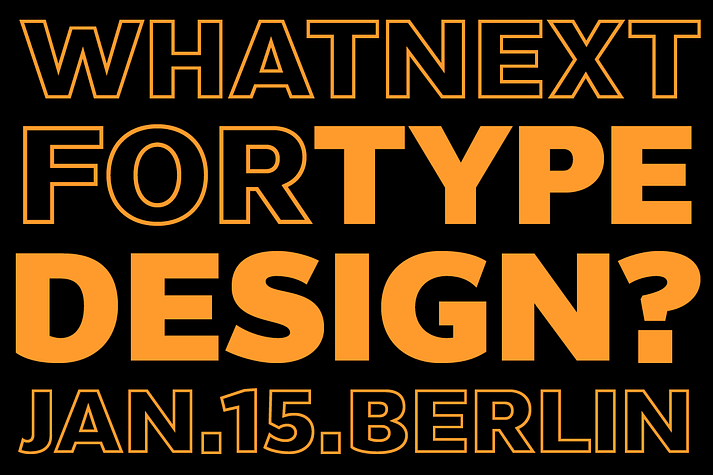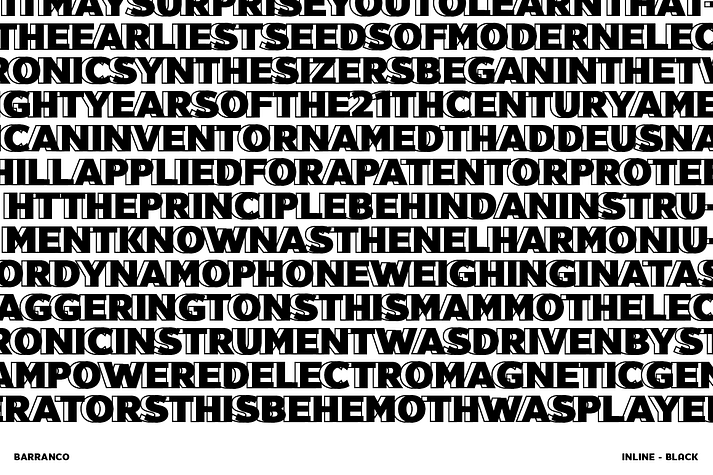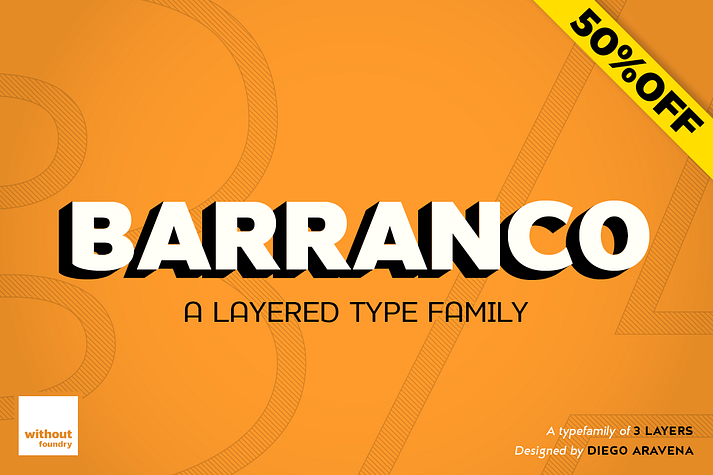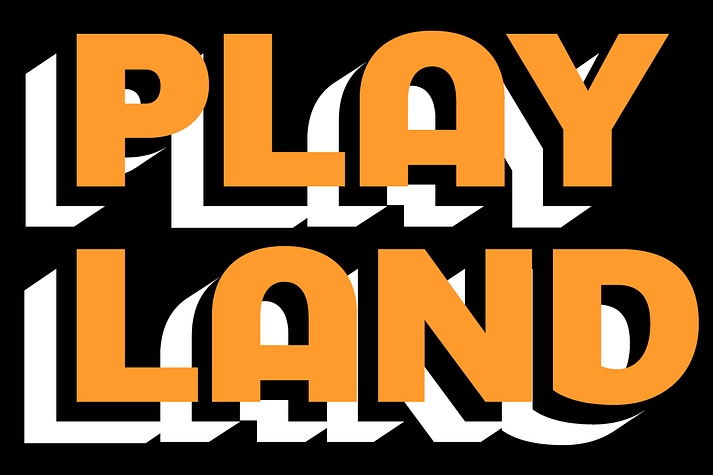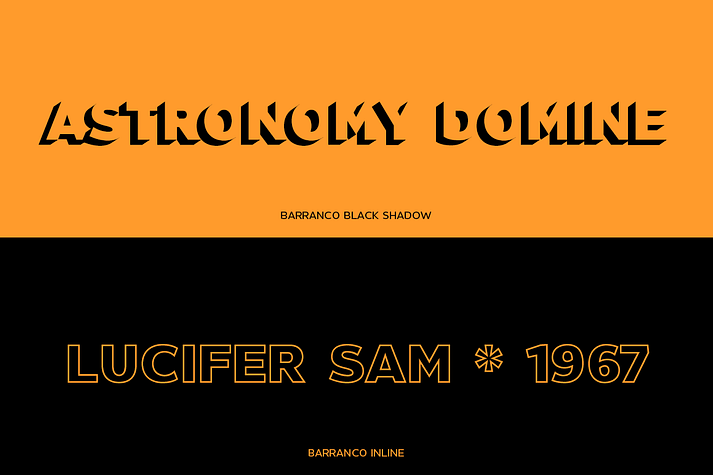
Barranco
Barranco is a display sans, hand display and sans serif font family. This typeface has seven styles and was published by W Type Foundry.
Barranco is a 3d layered fontfamily of 3 weights (thin, medium, black), plus shadows and one inline effect layer. It’s inspired by the caps neo-humanist typefaces of the 80’s with a mix of new trends such as the new layered typefaces and super heavy font families. Each font also comes with a set of Stylistic Alternatives for letters A I K W Q, and extensive language support.
Barranco is really nice for magazines design, trademarks, logos, posters, etc…